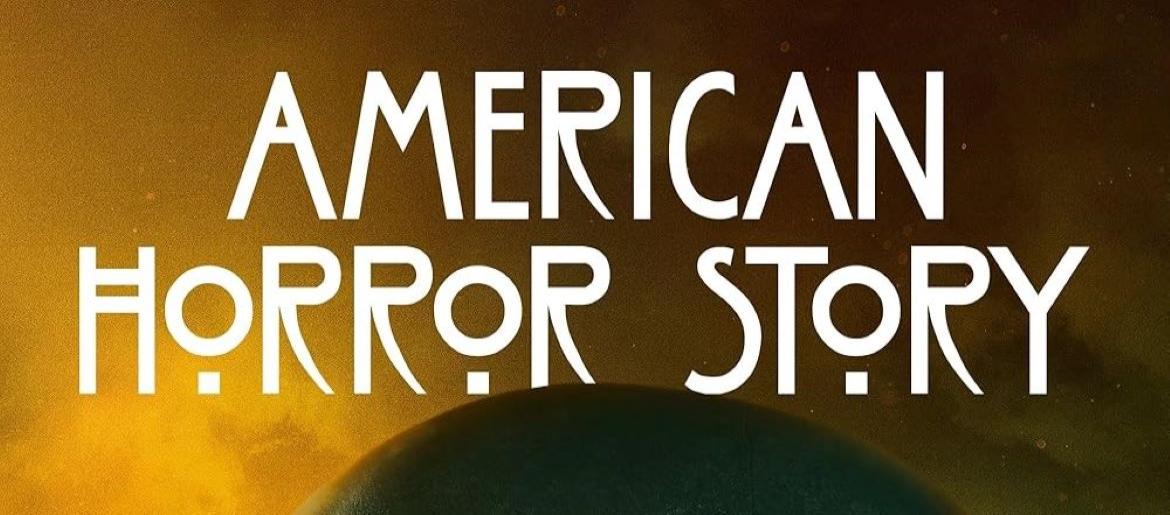
American Horror Story Font
The American Horror Story Font is instantly recognizable for its eerie and distinctive style. Based on ITC Willow, an art nouveau-inspired typeface from the 1990s, the font combines tall, narrow letters with unusual geometric cuts. This creates a look that is both vintage and unsettling, perfectly capturing the dark and twisted tone of the series.